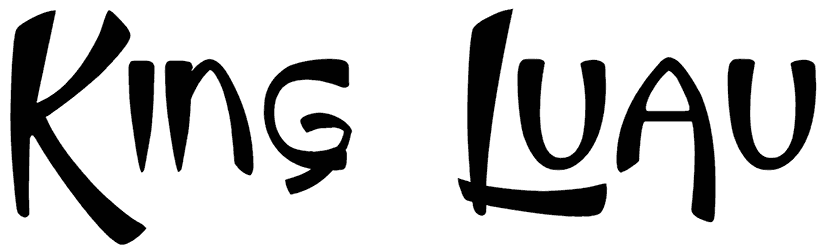
King Luau Font
Look, you encounter a ninja font with thicker edges in all letters. King Luau font adds the feeling that your design must be different from others. Without lowercase letters, the handwritten and comic font does not intend to sit on the paper, instead, its flowing characters make it exciting to use. So it comes in handy for comics, book covers, presentations, and trailers.